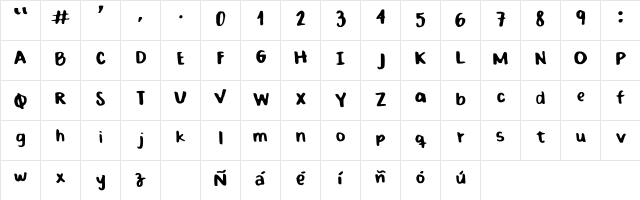
Bold Crayola Regular
Design Context for Bold Crayola Typeface
Bold Crayola is a composed and adaptable typeface that performs quietly and consistently across a wide range of design contexts. Its bold stroke weight gives it real presence on the page.